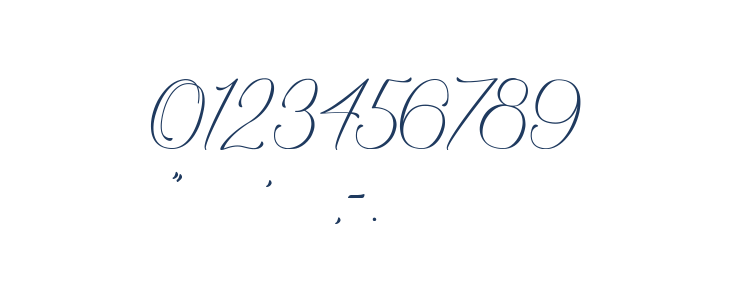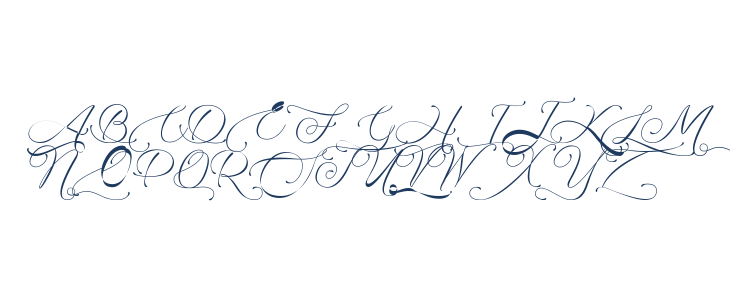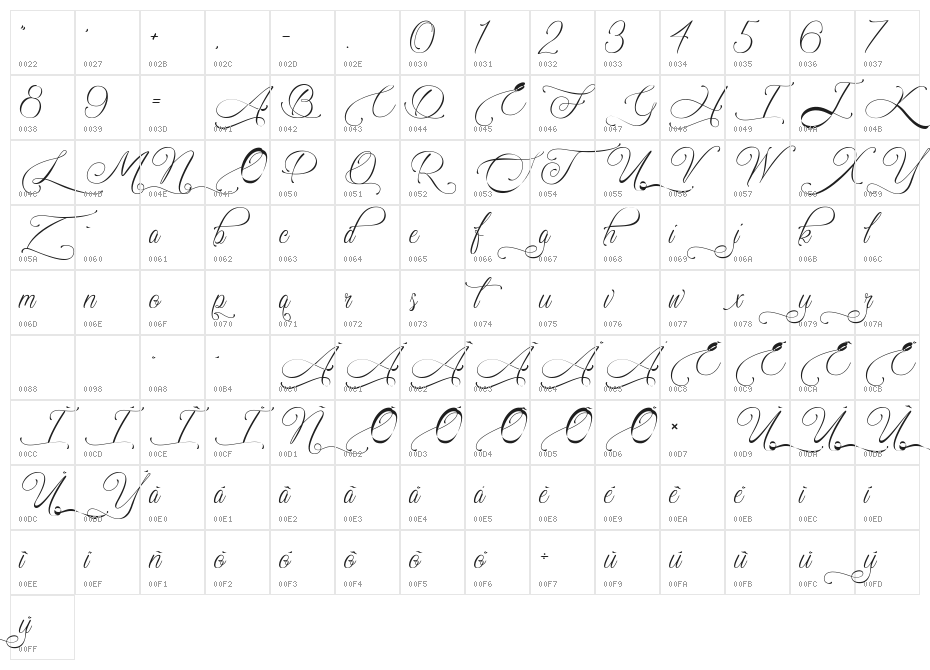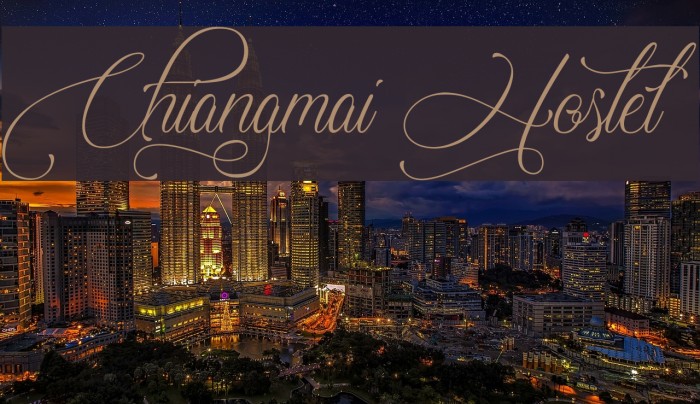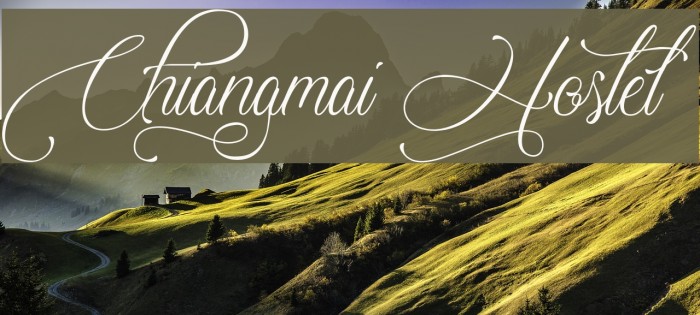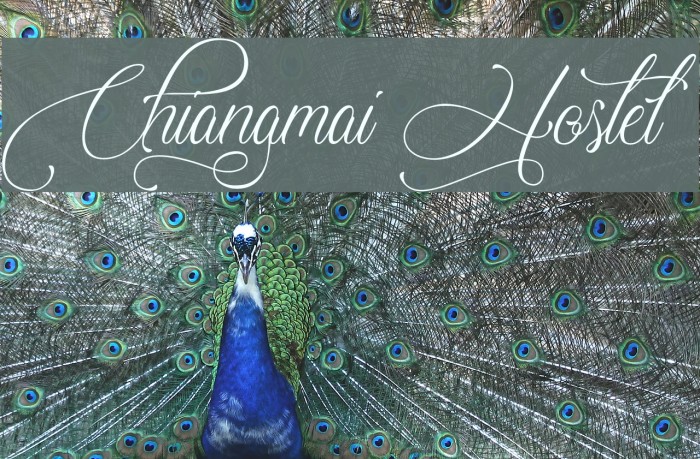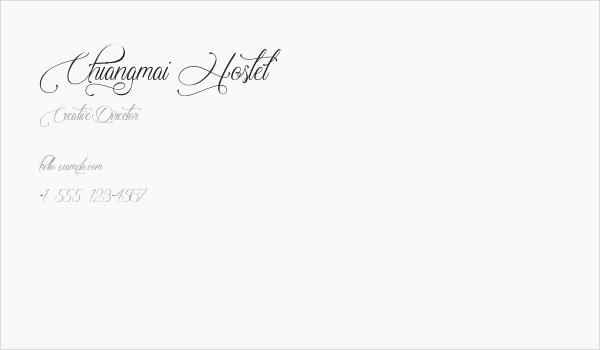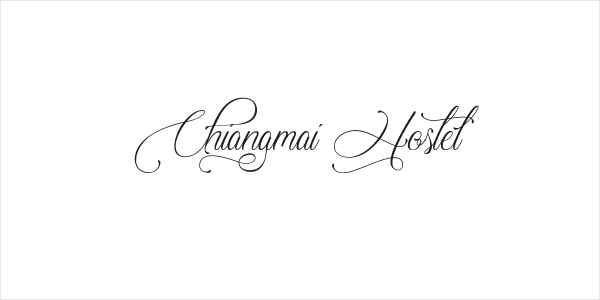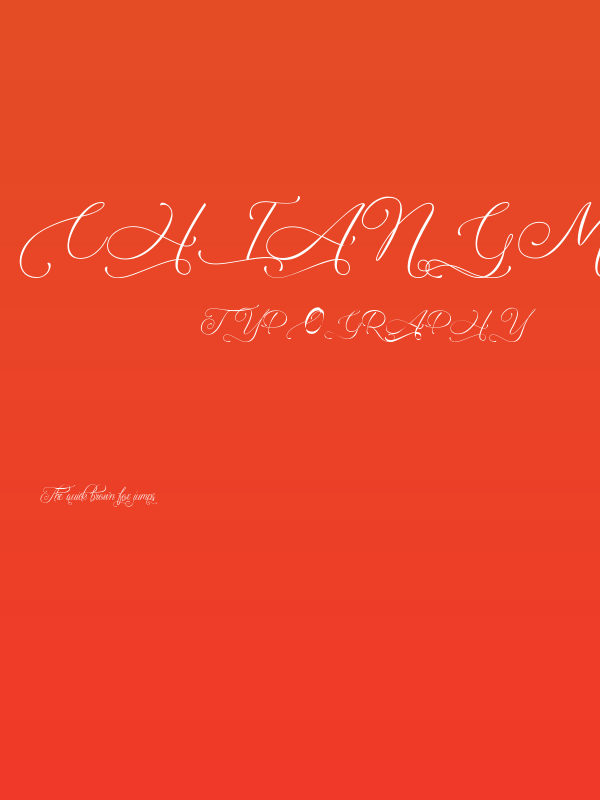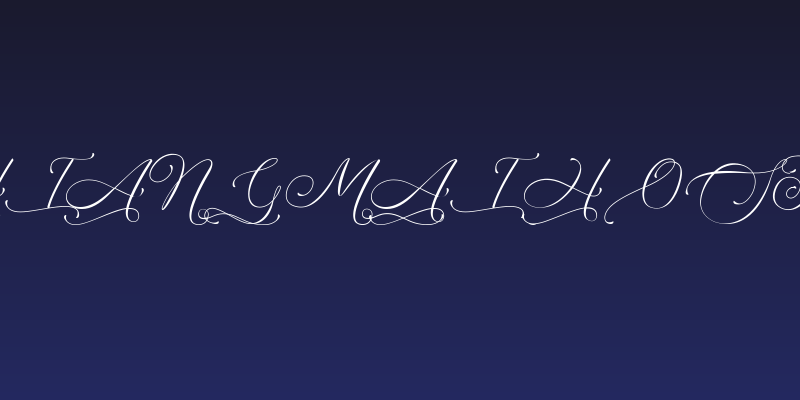
Chiangmai Hostel Font
Chiangmai Hostel Description
This elegant script font features intricate swirls and flourishes, giving it a sophisticated and artistic appearance. The uppercase letters are adorned with elaborate loops, while the lowercase letters maintain a graceful flow, making it ideal for decorative purposes. The numerals are stylishly curved, complementing the overall aesthetic. The font's delicate lines and ornate details make it perfect for formal invitations, branding, and any project that requires a touch of elegance and refinement.
Use CaseLogos, Invitations, Decorative text
Proposed ProjectsIdeal for wedding invitations, luxury branding, greeting cards, and decorative signage.